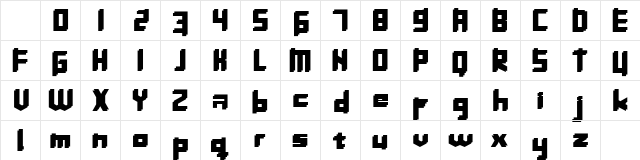
Complete InavelTjockaSlakten Regular glyph index. Displaying only characters natively supported by InavelTjockaSlakten Regular font.
InavelTjockaSlakten is a composed and adaptable typeface that performs quietly and consistently across a wide range of design contexts.